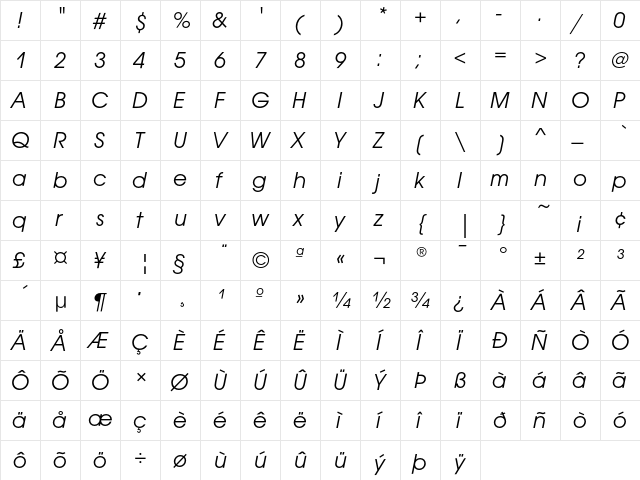
AvantGardEF BookOblique
Design Context for AvantGardEF Typeface
AvantGardEF offers clean, dependable letterforms without strong stylistic allegiance, making it a practical choice for designers who need flexibility. The dynamic lean of this cut emphasises speed and emphasis in any layout.
Pro Tip: Use AvantGardEF for emphasis, pull quotes, and subheadings where its slanted energy can add rhythm to the layout.